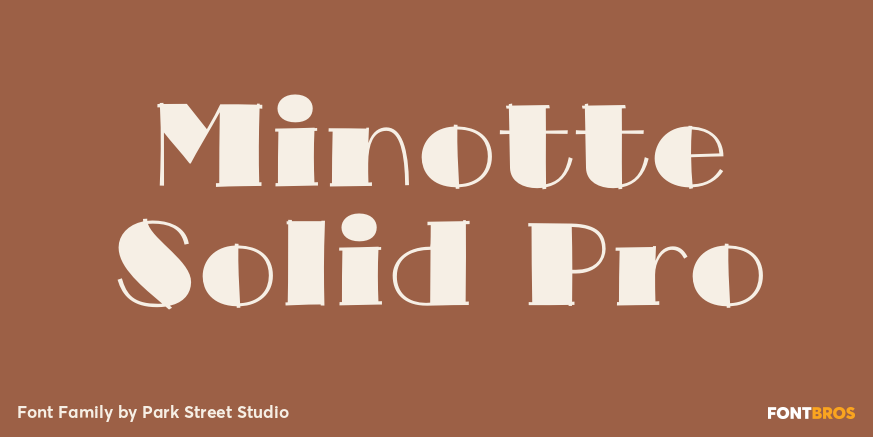
Minotte Solid Pro
Originally conceived while sketching outline typefaces for a client, Minotte Pro has blossomed into a font one thousand glyphs strong and is chock full of alternates and contextual swashes! By enabling swashes, style sets, and contextual alternates in…